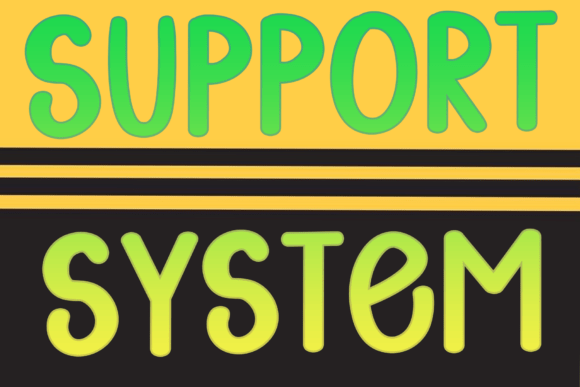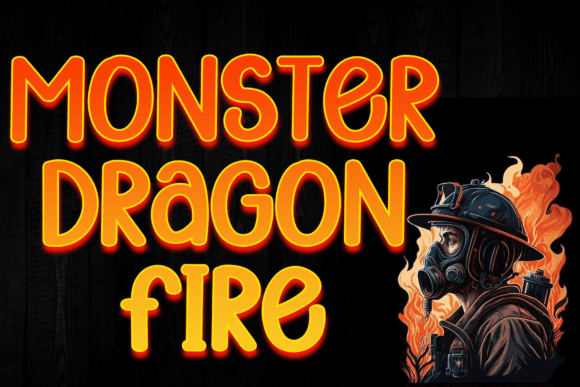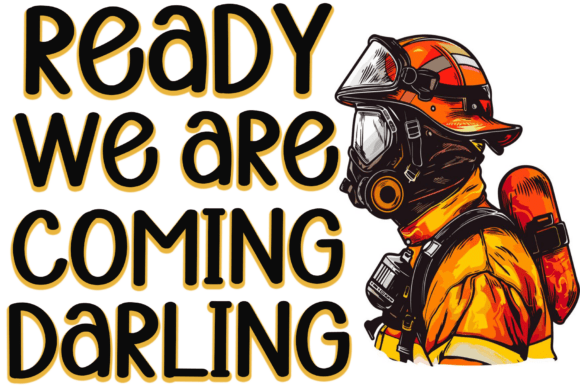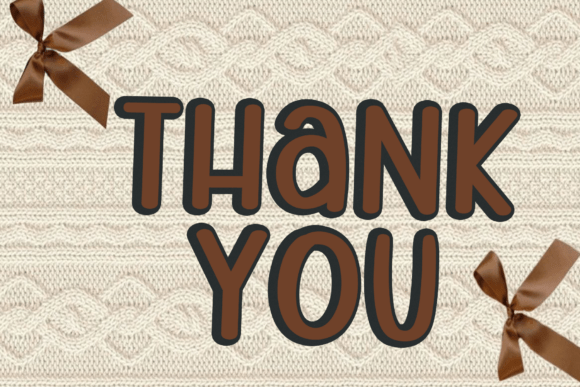
Introducing Firefighter Font: The Sweet and Friendly Handwritten Font for Your Design Needs
Are you a designer or crafter looking for a font that can add a lovely touch to your wedding invitations, cards, or other designs? Look no further than the Firefighter font! This sweet and friendly handwritten font is perfect for creating fresh and casual designs that will leave a lasting impression.
What Makes Firefighter Font So Special?
Firefighter font is a beautifully crafted handwritten font that exudes warmth and friendliness. Its fresh and casual vibe makes it ideal for a wide range of design projects, from wedding invitations and cards to posters, flyers, and more. The font’s sweet and elegant feel will add a touch of sophistication to any design, making it perfect for designers and crafters who want to create something truly special.
Key Features of Firefighter Font
- Handwritten with love: Firefighter font is a genuine handwritten font, crafted with care and attention to detail to ensure that it looks and feels authentic.
- Sweet and friendly: The font’s sweet and friendly tone makes it perfect for designs that require a personal touch, such as wedding invitations, birthday cards, and more.
- Fresh and casual: Firefighter font has a fresh and casual vibe that makes it ideal for a wide range of design projects, from formal to informal.
- Elegant and sophisticated: Despite its casual feel, Firefighter font is also elegant and sophisticated, making it perfect for designs that require a touch of luxury.
How to Use Firefighter Font in Your Designs
Firefighter font is incredibly versatile and can be used in a wide range of design projects. Here are a few ideas to get you started:
- Wedding invitations: Firefighter font is perfect for creating beautiful and elegant wedding invitations that will set the tone for your special day.
- Cards and stationery: The font’s sweet and friendly tone makes it ideal for creating cards, stationery, and other paper crafts.
- Posters and flyers: Firefighter font can add a touch of elegance and sophistication to your posters and flyers, making them stand out from the crowd.
- Digital designs: The font can also be used in digital designs, such as social media graphics, blog posts, and more.
Why Choose Firefighter Font?
- Unique and authentic: Firefighter font is a genuine handwritten font that will add a unique and authentic touch to your designs.
- Easy to read: The font is clear and easy to read, making it perfect for designs that require a lot of text.
- High-quality: Firefighter font is a high-quality font that is designed to look great in any design.